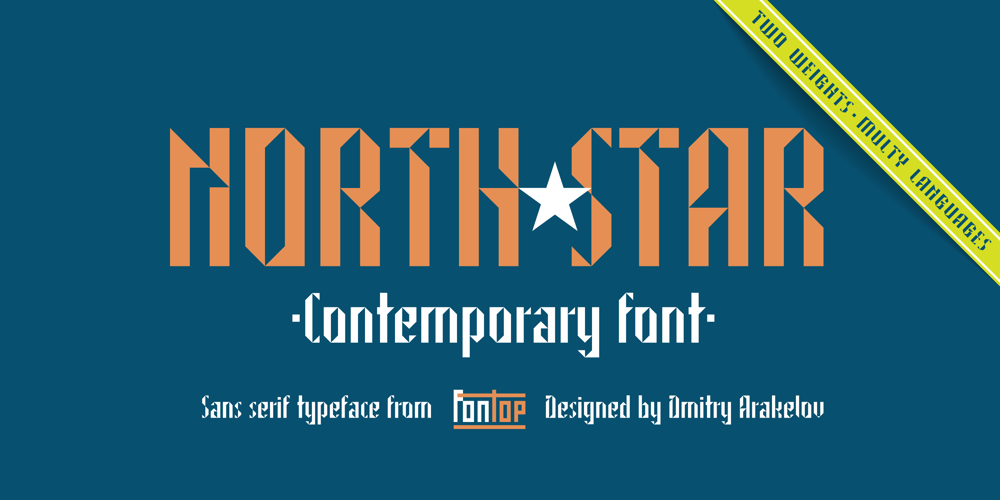
North Star Font Family was designed by Dmitry Arakelov and published by Fontop. North Star contains 2 styles and family package options. Aaaaand here it comes! New sans serif typeface NORTH STAR. Pure geometric forms – this is what makes these fonts look so special. Ad materials, logos, posters and so on so on. The font comes in Regular and Bold, both are Latin multilingual and have uppercase letters, lowercase letters, numbers and basic punctuations. Thanks to its geometric shape you can also make an additional effect with combining different colors in the one letter and adding shades. Its easily done in AI after you convert your text to outlines.